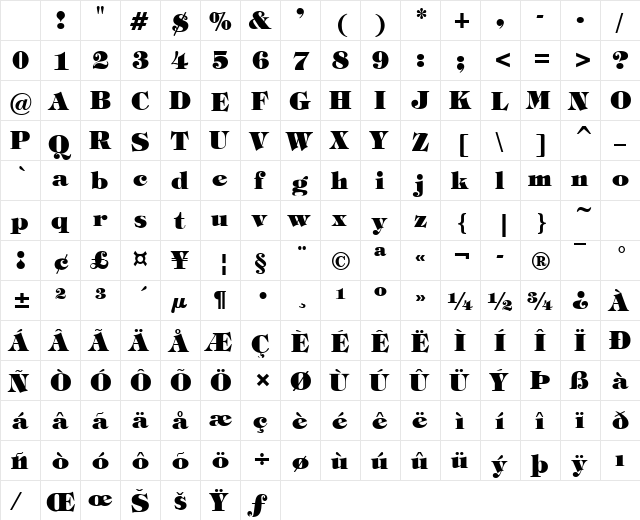
Complete Jewel Bold glyph index. Displaying only characters natively supported by Jewel Bold font.
Jewel is a composed and adaptable typeface that performs quietly and consistently across a wide range of design contexts. Its bold stroke weight gives it real presence on the page.